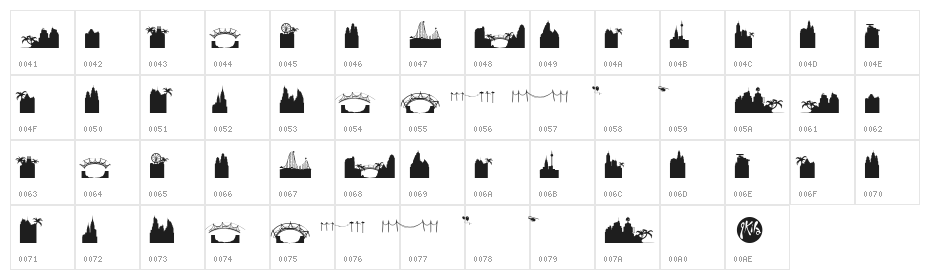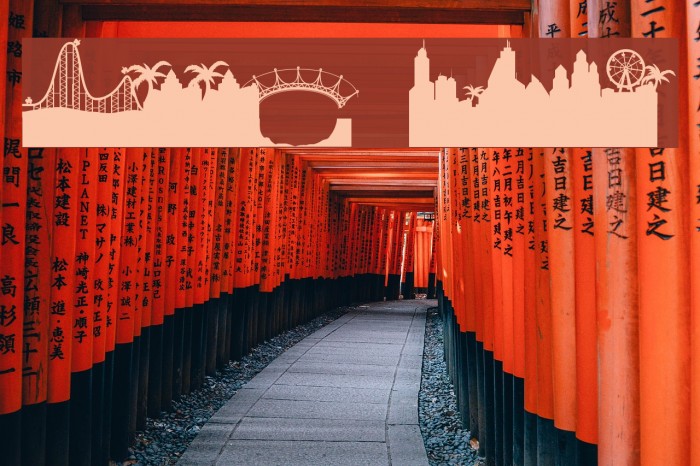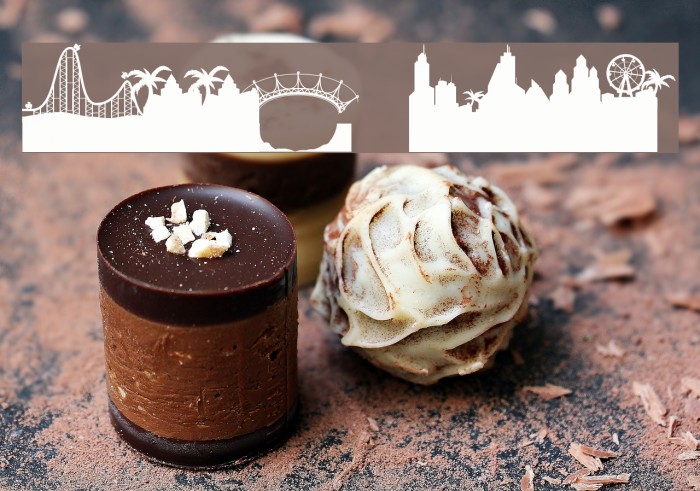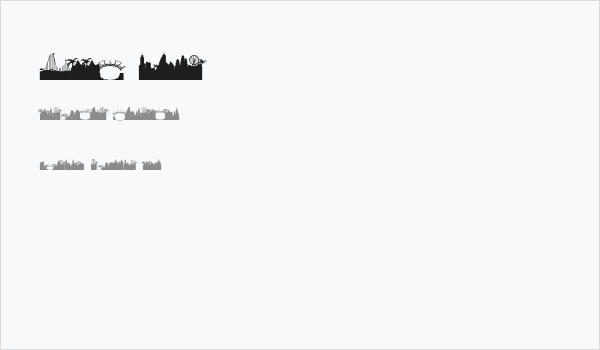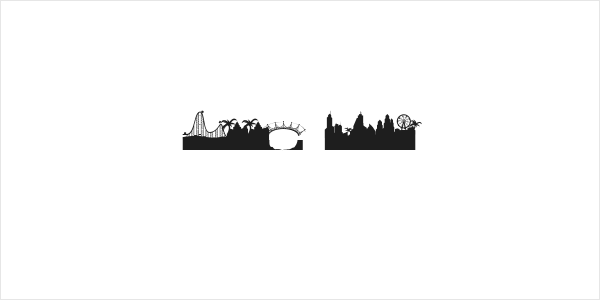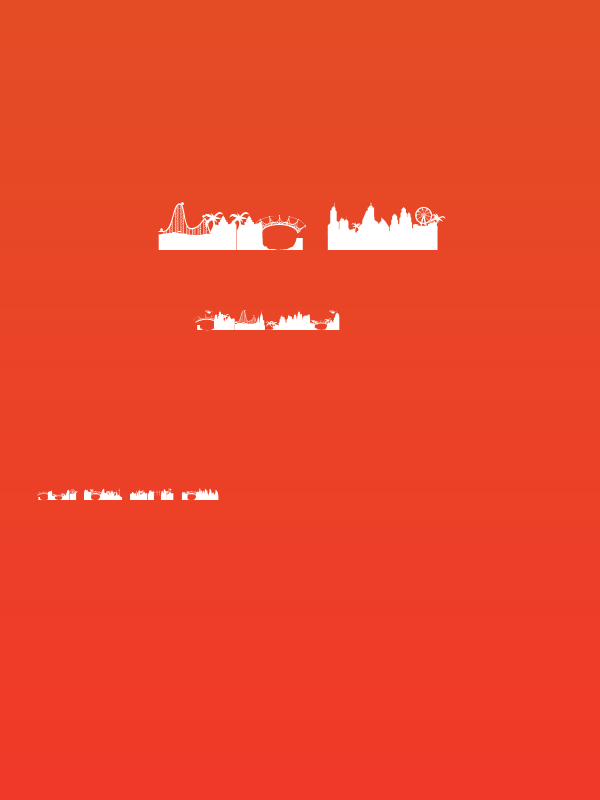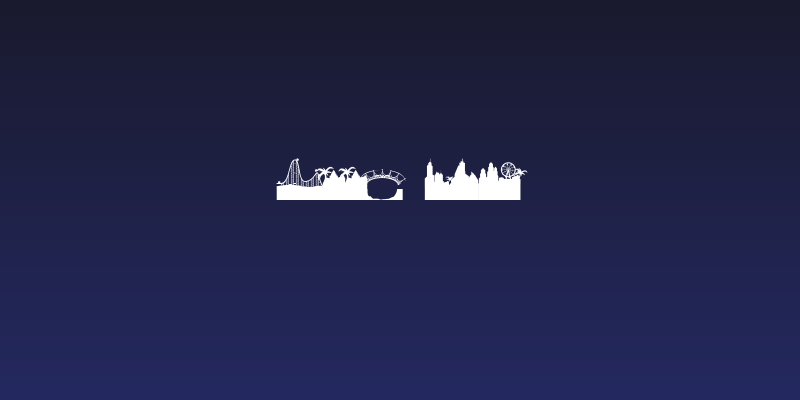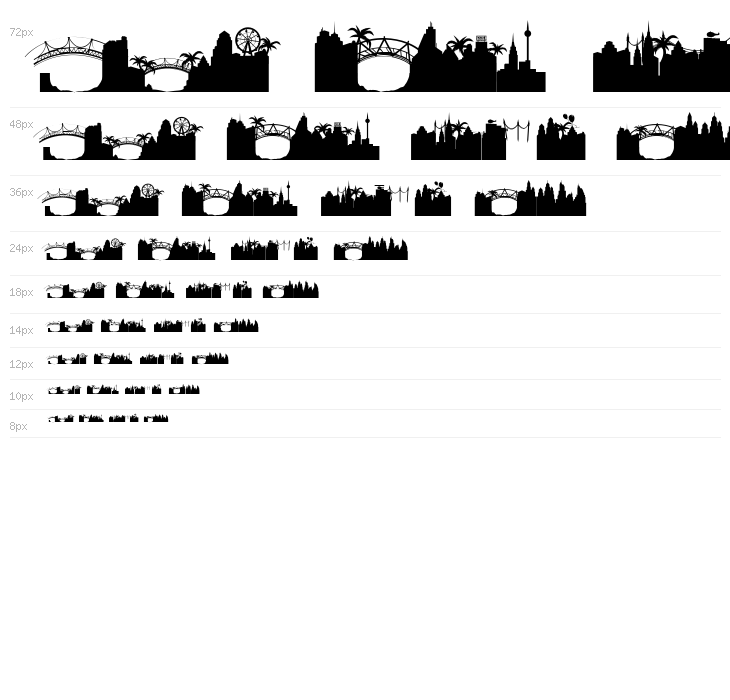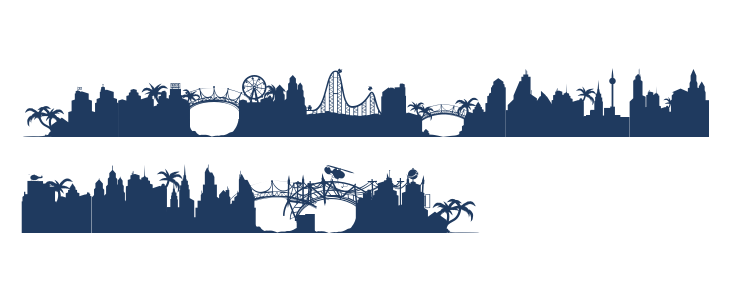
Good Life Font
Good Life Description
A decorative font featuring detailed cityscape silhouettes with iconic landmarks, palm trees, bridges, and helicopters, rendered in solid black with high contrast and intricate outlines.
| Overall Style | Decorative, Urban, Thematic |
| Use Case | Headlines, Logos, Posters, Themed graphics |
| Proposed Projects | Event posters, travel brochures, city-themed branding, decorative headlines, tourism campaigns. |